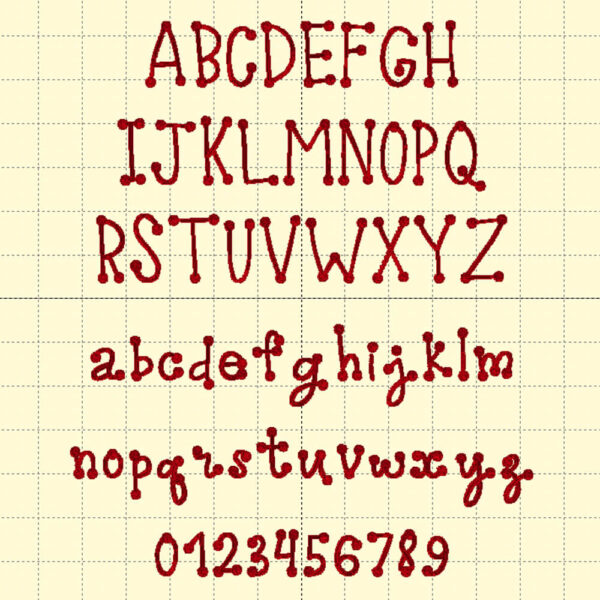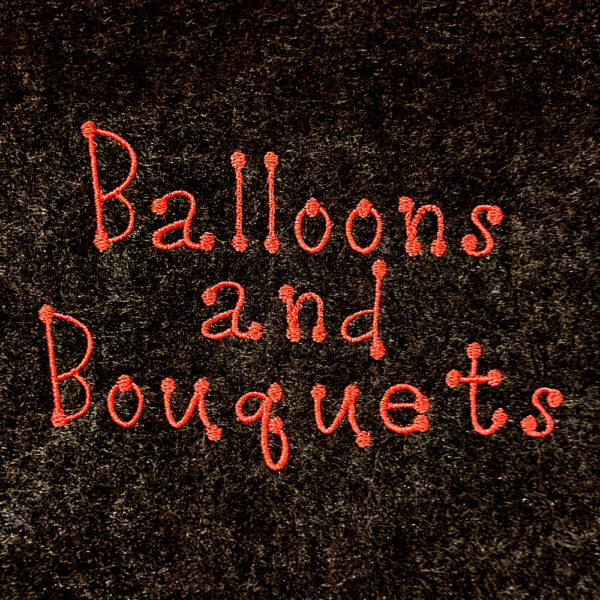
Balloons and Bouquets Font
A whimsical font that is perfect for kids’ names. Stitch out a name with the Balloons and Bouquets font on clothing and accessories.
Balloons and Bouquets Font
All uppercase and lowercase letters plus all 10 digits